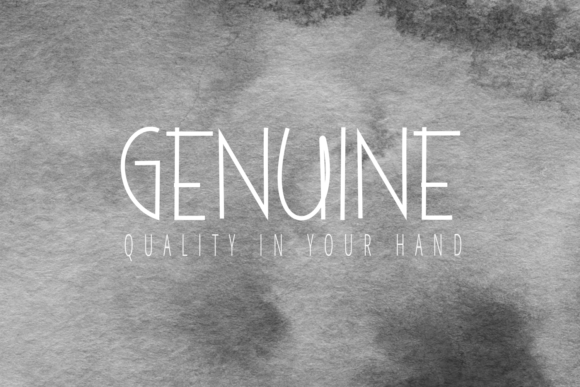
The Perfect Touch of Handwritten Charm
Have you ever stared at a blank page, feeling the weight of a creative project’s expectations? The cursor blinks, taunting you with its steady rhythm. You take a deep breath, and suddenly, the right words flow. But how do you make them stand out?
Enter Genuine Font – a beautiful, informal handwritten font designed to add a touch of warmth and personality to your creations. Its thin lettering and wide spacing create a visually striking effect that’s sure to capture attention. Whether you’re designing a brochure, a website, or a social media campaign, Genuine Font is the perfect addition to elevate your work.
For designers, Genuine Font is a valuable asset in its simplicity and versatility. Its unique style can instantly transform a project from bland to beautiful, making it a go-to choice for those who want to add a genuine (pun intended) touch of handwritten charm to their designs.
Genuine Font Key Features
- Unique Characteristics: This font features a unique blend of modern and traditional elements, resulting in a distinctive and sophisticated aesthetic.
- Font Metrics: The font’s carefully crafted metrics ensure optimal readability and typographic balance, making it suitable for both body text and display use.
Genuine Font Review
As a designer, I’ve had the chance to work with a lot of fonts, and I’ve got to say that Genuine Font is one that stands out. Here’s my honest review.
- Legibility: This font is super easy to read, even at smaller sizes.
- Variety: The font comes in a range of weights and styles, making it perfect for any project.
- Neutral: The design is neutral enough to work well with a wide range of color schemes.
- Consistency: The font is consistent across different devices and platforms.
- Lack of Personality: While the font is great for most projects, it’s not particularly memorable or attention-grabbing.
- No Unique Quirks: The font is a bit too straightforward, lacking the unique quirks that make some fonts really stand out.
- Not Ideal for Emphasis: The font’s clean design makes it less suitable for projects where you need to draw attention to specific text.
Genuine Font is a solid choice for most design projects. While it may not be the most exciting font out there, it’s reliable, easy to work with, and gets the job done. If you’re looking for a font that’s going to provide a clean and neutral background for your content, this is a great option. However, if you’re looking for something that’s going to really make a statement, you might want to consider something else.
Tips for Getting the Most Out of Genuine Font
Use Genuine Font to create professional-looking designs and documents.
Experiment with different font sizes, colors, and styles to find the perfect combination for your project.
Use Genuine Font in conjunction with other design elements to create a cohesive and visually appealing design.
Use Genuine Font for:
Business cards and resumes
Marketing materials and brochures
Presentations and reports
Alternatives to Genuine Font for Designers
Open Sans is a popular sans-serif font designed by Steve Matteson. It’s ideal for digital interfaces, web design, and user-friendly applications. Open Sans is highly legible, versatile, and suitable for a wide range of contexts.
Comparison to Genuine Font: Open Sans is more modern and sleek compared to Genuine Font, which is more traditional and formal. While Genuine Font excels in high-end branding, Open Sans is better suited for everyday digital use.
Lato is a sans-serif font designed by Łukasz Dziedzic. It’s designed for digital use, particularly in web design, and is known for its clean and modern look. Lato is highly customizable and suitable for a wide range of applications.